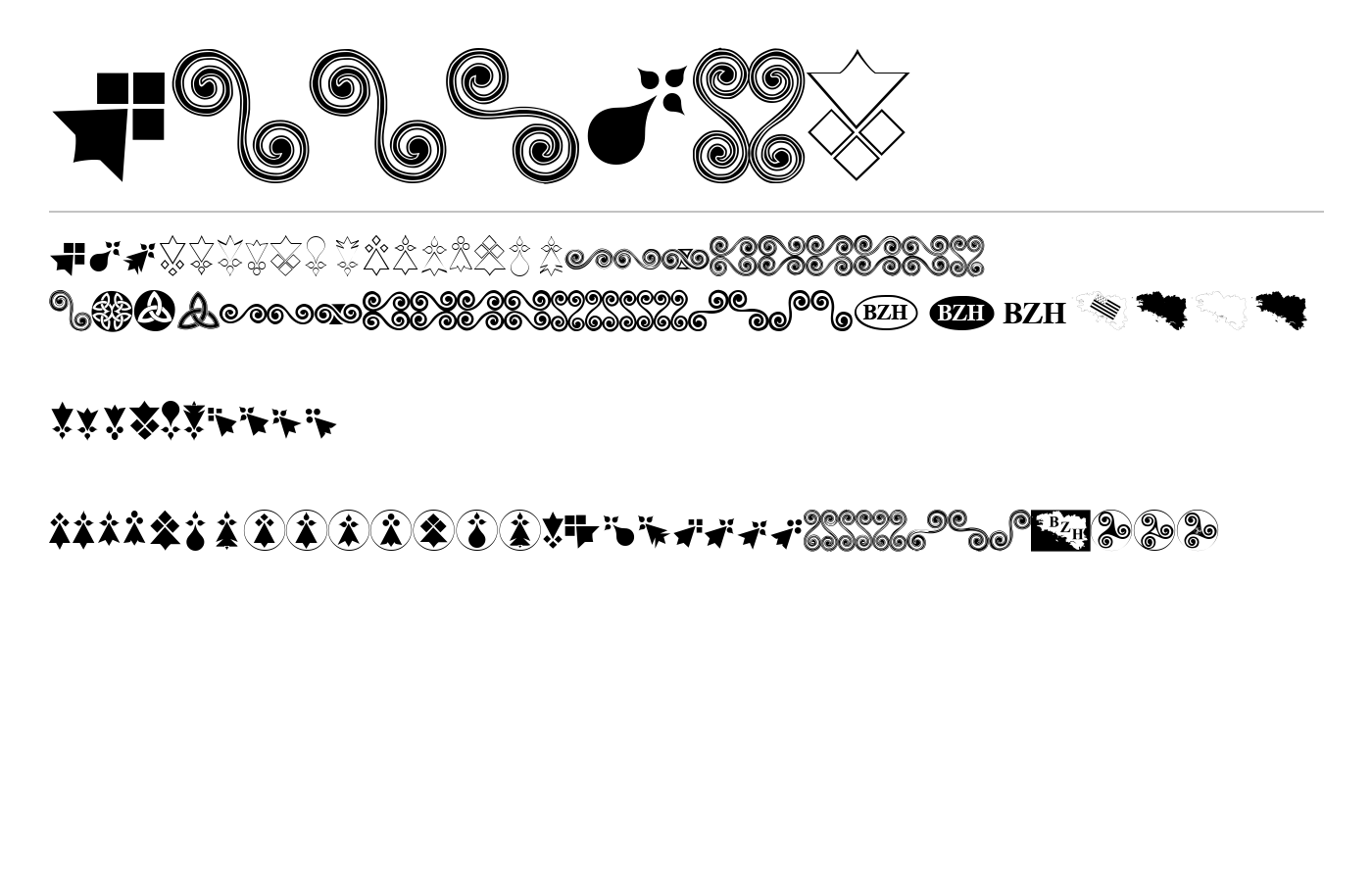
Aaa_BZH Font is a decorative symbol typeface featuring intricate, swirling motifs and cultural icons that evoke a traditional, Celtic-inspired aesthetic. Its bold, complex designs make it ideal for artistic and heritage branding, packaging, or decorative accents where a unique, ornamental feel is desired. This font works best in creative projects that call for a strong visual identity rooted in folkloric or regional themes.
Aaa_BZH Font